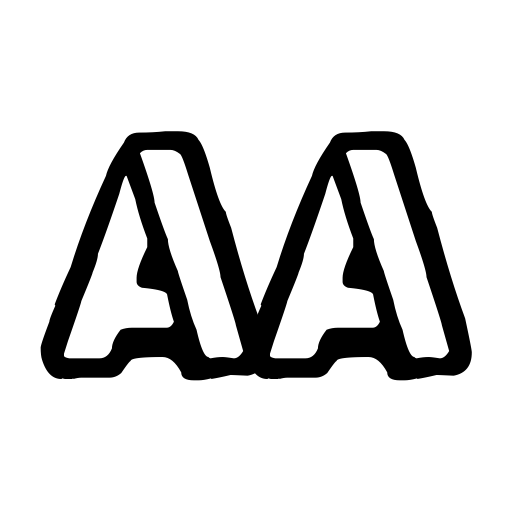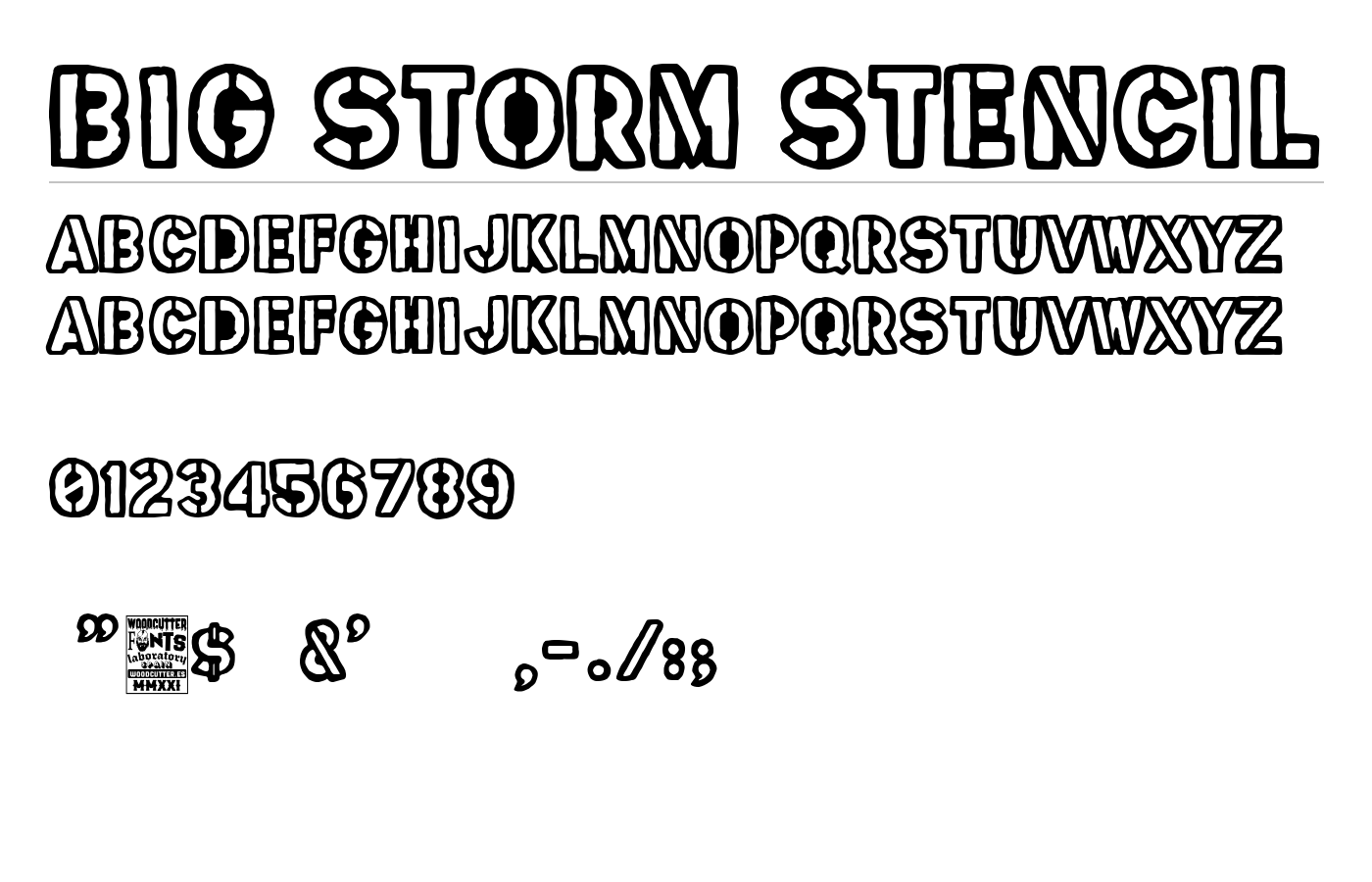
Big Storm Stencil is a bold, condensed sans serif font with a striking stencil design that combines playful, hand-drawn qualities with tough, industrial vibes. Its irregular edges and thick, broken strokes give it a dynamic, energetic feel perfect for eye-catching headlines, logos, and poster designs that want to convey strength and creativity. This font works best in settings where a rugged yet fun personality is needed, such as product packaging, streetwear branding, and adventurous editorial projects.
Big Storm Stencil Font
About Big Storm Stencil Font